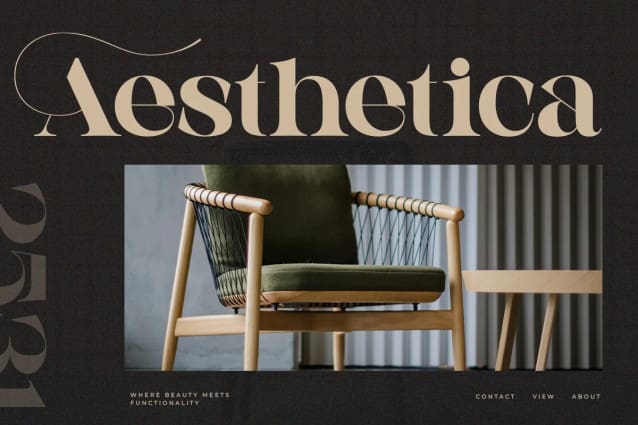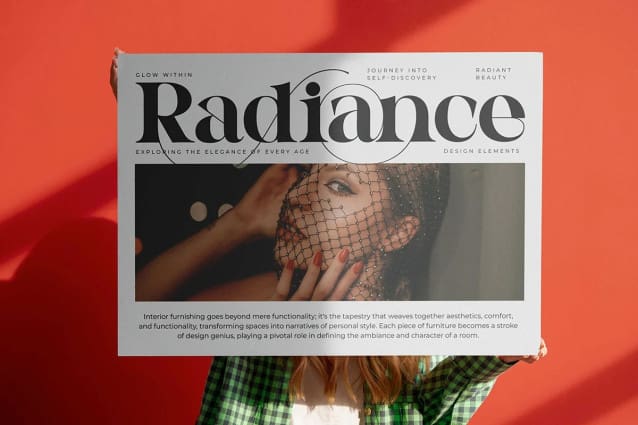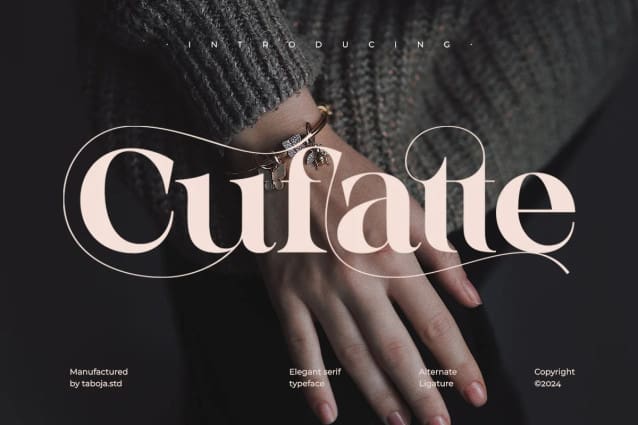
Cufatte Font
Cufatte Font is elegant serif typeface, dive into the world of timeless sophistication with our latest font creation, adorned with gentle and elegant swashes. Each letter is meticulously crafted, featuring subtle and graceful flourishes that add a touch of luxury to your design projects.
Cufatte Font  perfect for projects that require a vintage feel, such as posters, logos, packaging, and promotional materials that aim to capture a nostalgic and sophisticated atmosphere. This font will add a special touch to your designs and captivate viewers with its retro allure and distinctiveness.